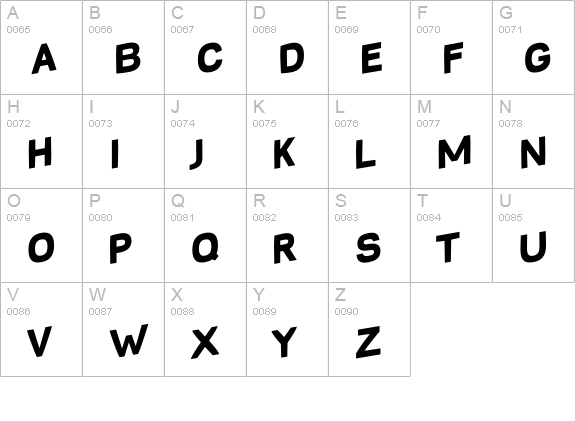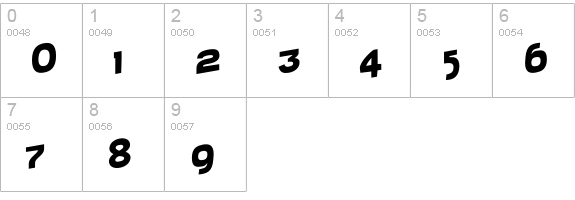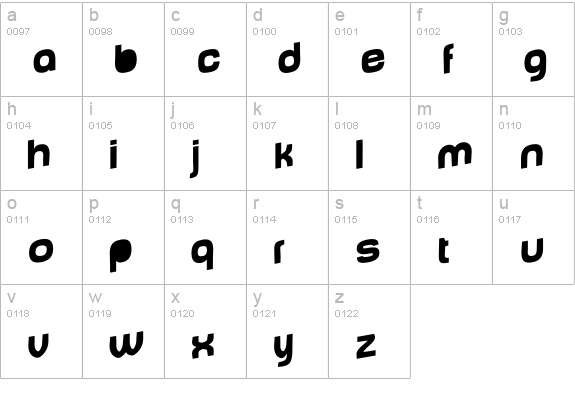
BabyMineFatJumping Font Details
Introducing BabyMineFatJumping, a charming and playful font that is sure to bring joy and whimsy to any project. This font is perfect for adding a touch of childlike wonder to invitations, greeting cards, posters, and more. With its round and chubby letterforms, BabyMineFatJumping exudes a friendly and approachable vibe, making it ideal for designs aimed at children and those young at heart. But what makes BabyMineFatJumping truly special is that it is free! Yes, you read that right - this delightful font is freely available to download at FontsMarket.com. Now, you can add a dose of cuteness to your designs without breaking the bank. Whether you're a professional designer, a hobbyist, or a parent looking to create something fun for your little one, BabyMineFatJumping is the perfect choice. Featuring a wide range of uppercase and lowercase letters, as well as numerals and punctuation marks, BabyMineFatJumping offers versatility and flexibility. Its bold and bouncy appearance ensures that your text will always stand out, while maintaining a sense of playfulness and innocence. So, why wait? Download BabyMineFatJumping today and let your creativity soar. Whether you're designing a birthday invitation, a nursery wall art, or a children's book cover, this font will add a touch of whimsy and charm that is sure to captivate your audience. Remember, it's free and available at FontsMarket.com - so go ahead and get creative with BabyMineFatJumping!